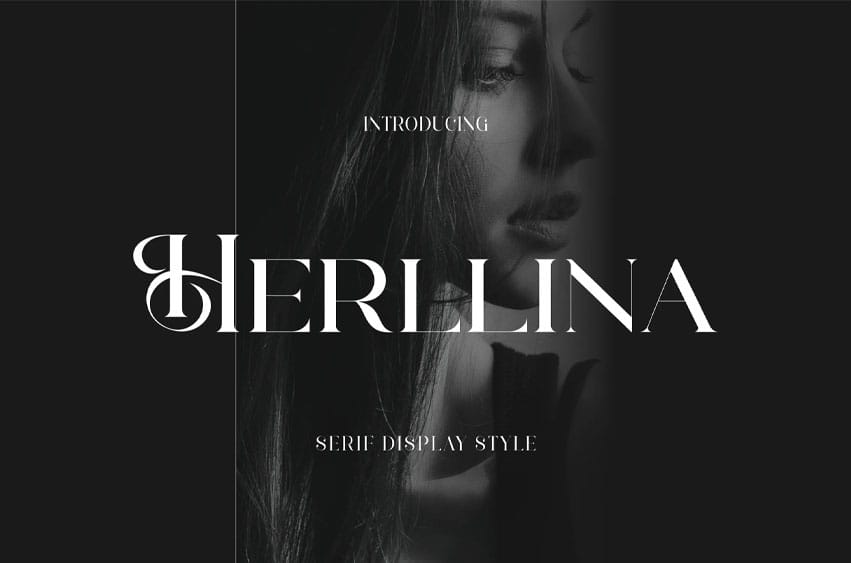
Herllina Font Serif Display Style is a bold and authentic display font.
The font is suitable for any branding project like logo, esport, and many more. outstanding in a wide range of contexts.